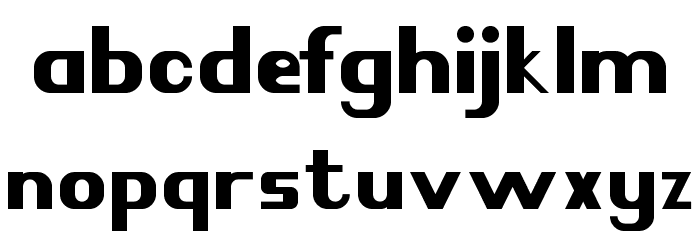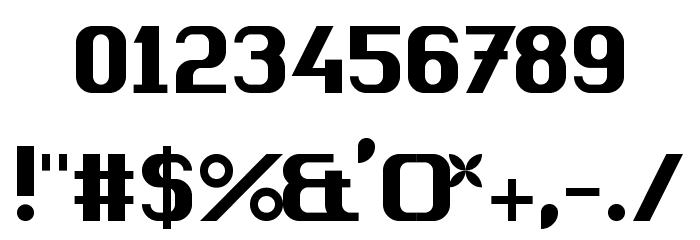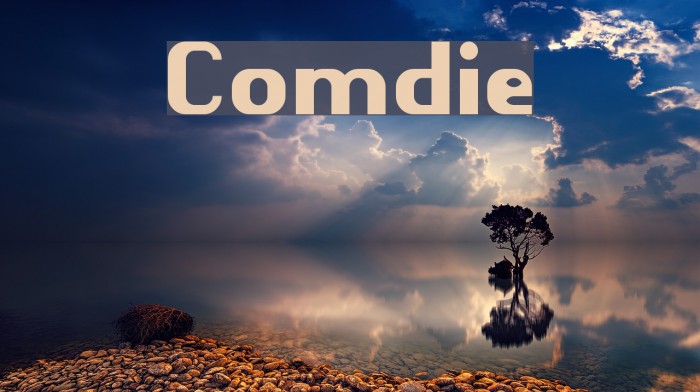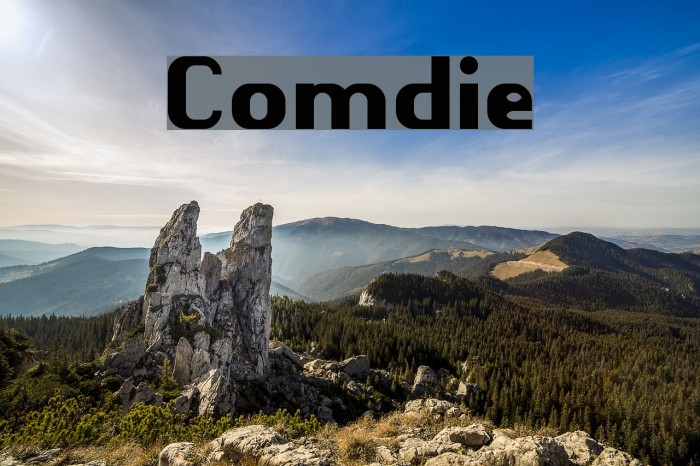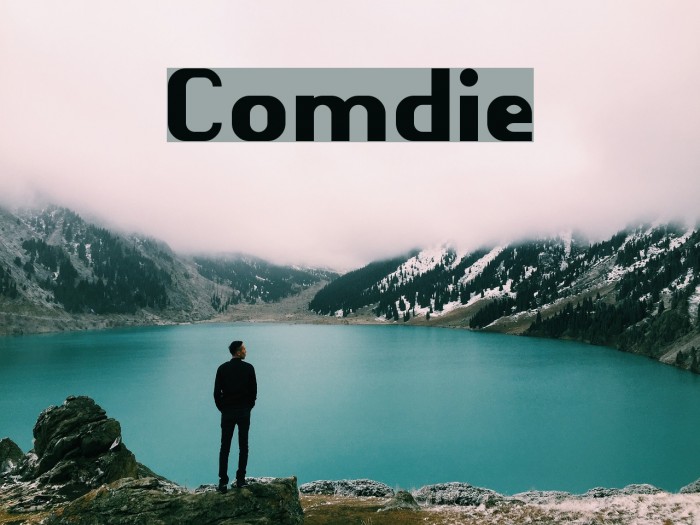
Comdie Font
This font features a bold and modern design with clean, geometric lines and a strong presence. The uppercase letters are uniform in height, creating a cohesive and structured appearance. The lowercase letters maintain a similar geometric style, with rounded edges that add a touch of softness to the overall look. The numerals are consistent with the letterforms, ensuring readability and balance. Special characters are well-integrated, maintaining the font's bold and modern aesthetic. This font is versatile and can be used in various design contexts, offering a contemporary and professional feel.
A bold, modern font with geometric lines and a strong presence.
- Proposed Projects: Ideal for branding, advertising, headlines, and digital media projects.
- Use Case: Headlines, Logos, Branding